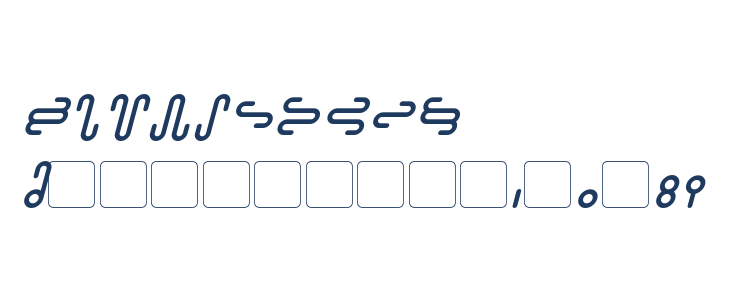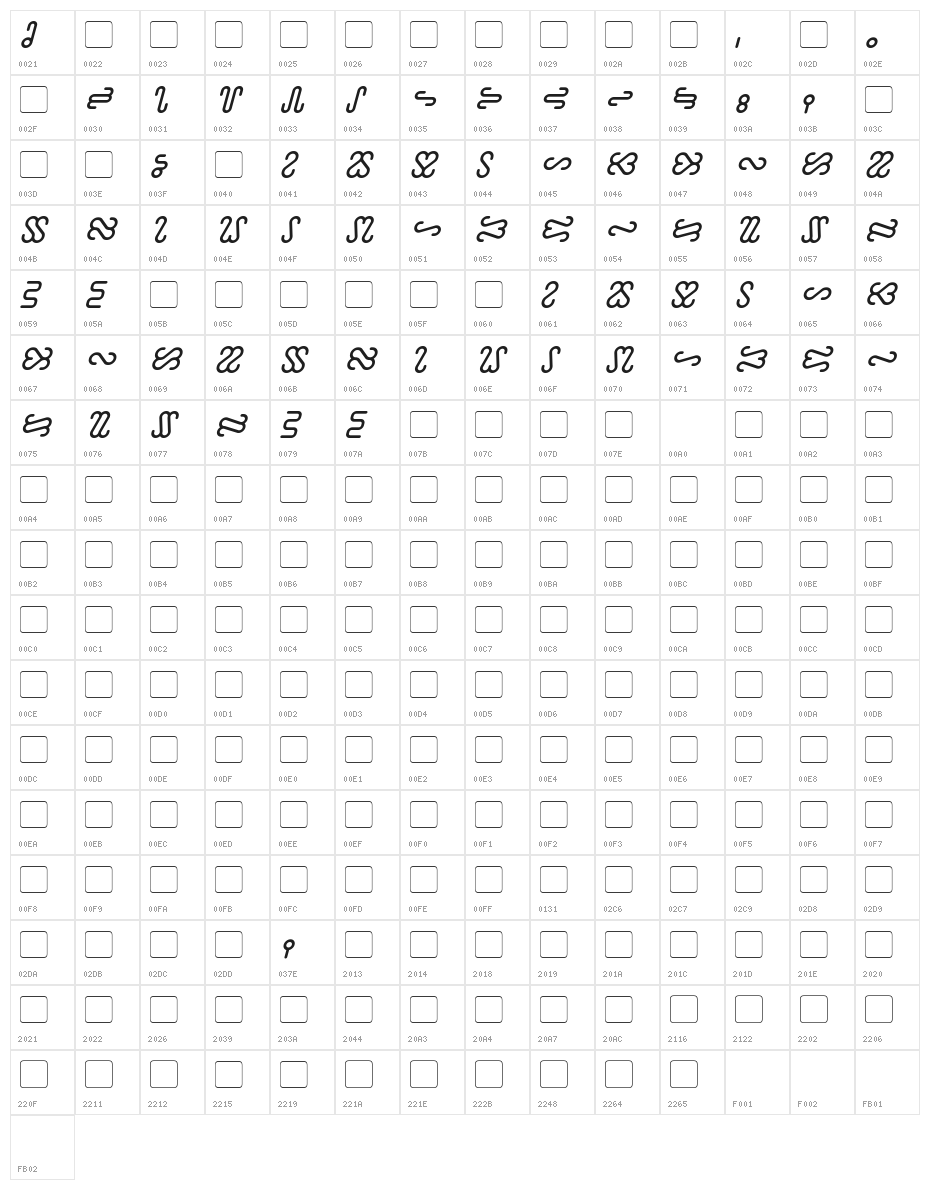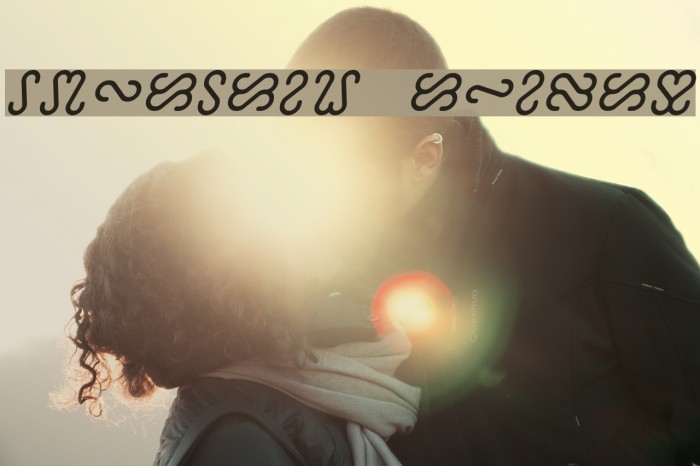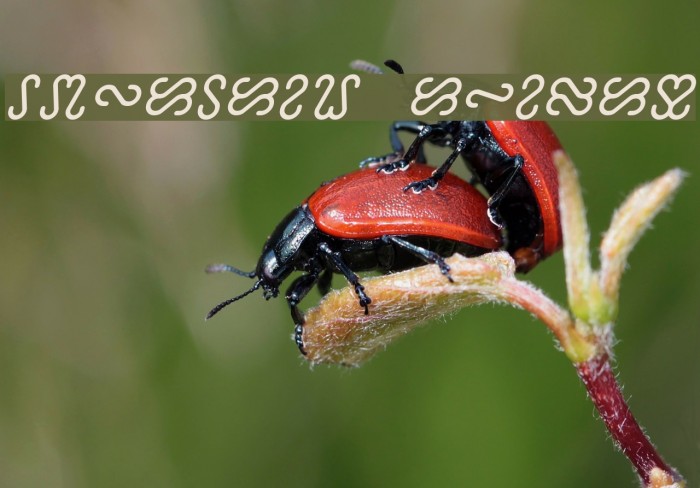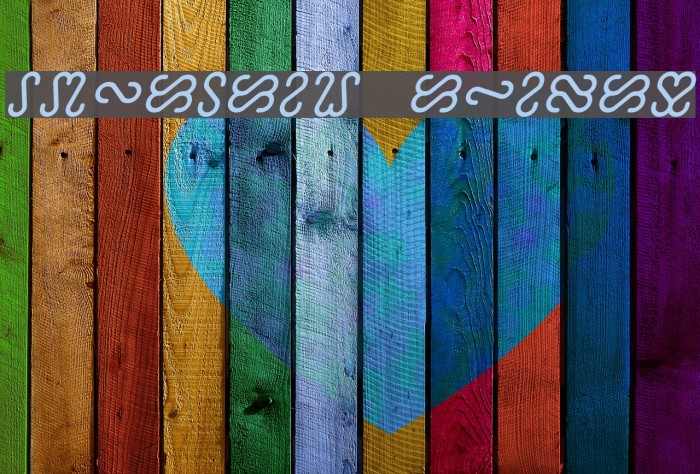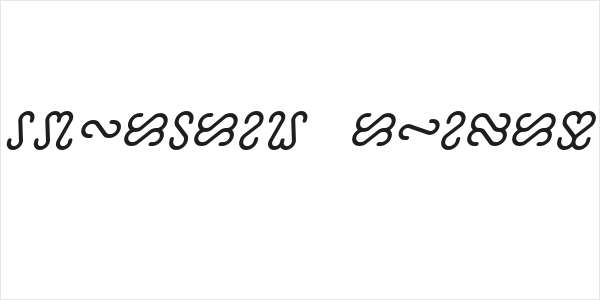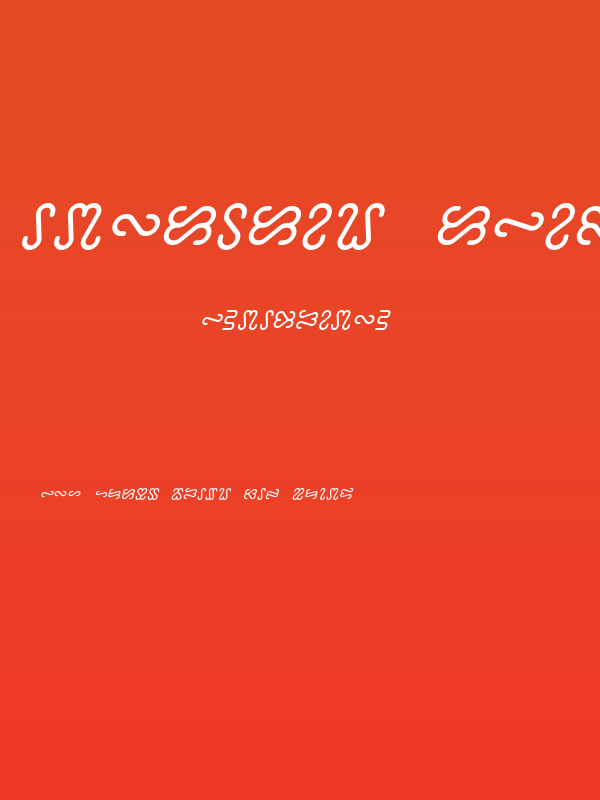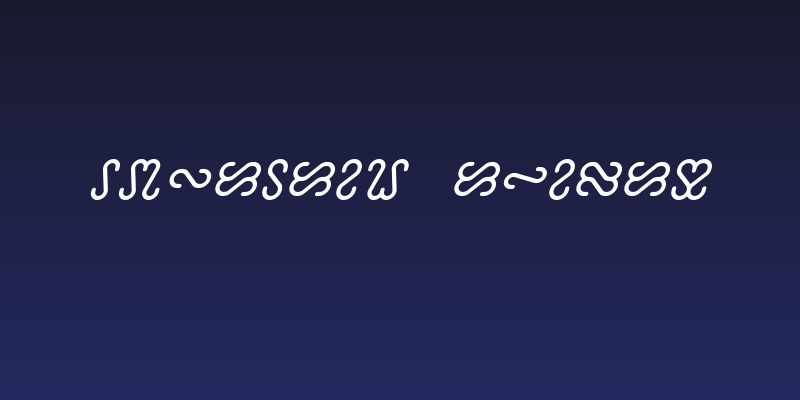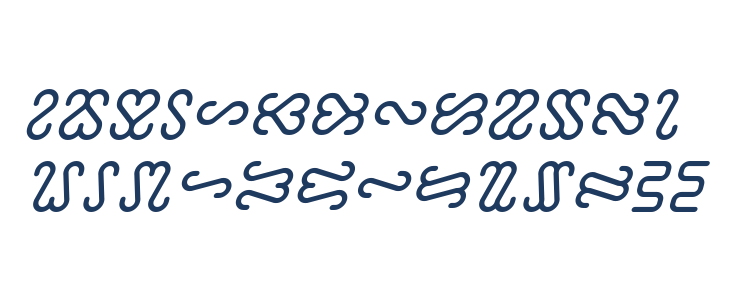
Ophidian Italic Font
Ophidian Italic Description
This font features a unique and decorative style with a flowing, serpentine design. Each character is crafted with smooth, continuous curves that mimic the movement of a snake, giving it an organic and fluid appearance. The strokes are bold and consistent in thickness, creating a strong visual impact. The characters are closely spaced, enhancing the cohesive and intertwined look of the text. This font's distinctive style makes it ideal for artistic and creative projects where a touch of elegance and mystery is desired. Its intricate design is both captivating and memorable, making it suitable for standout headlines or logos.
| Proposed Projects | Ideal for artistic projects, unique branding, logos, and decorative headlines. |